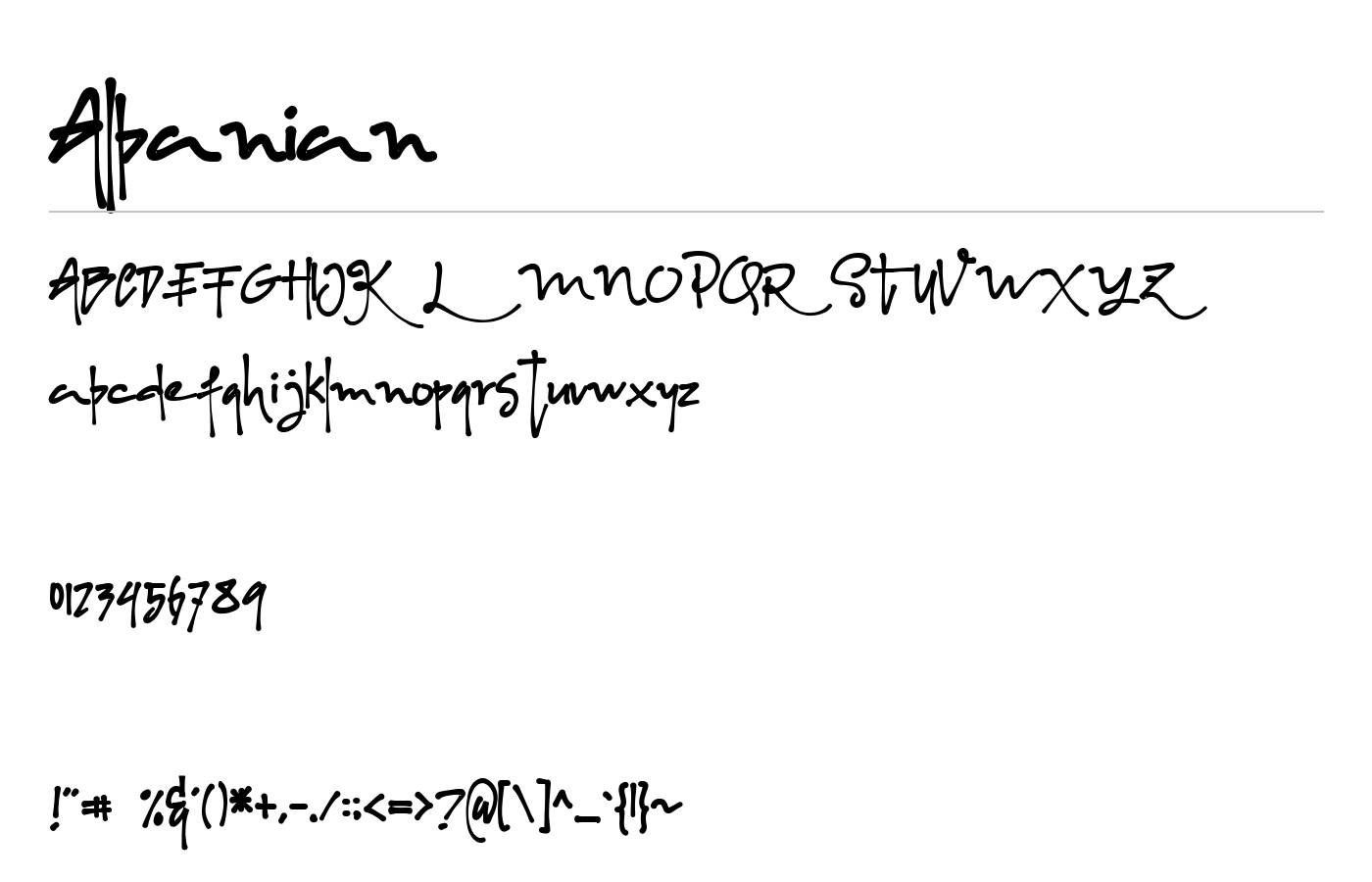
Albanian Font is an expressive handwritten script with a lively and casual feel, showcasing energetic, irregular strokes that give it a natural, personal touch. Its tall, narrow letterforms and slightly rough edges make it ideal for creative projects seeking a unique, informal vibe such as invitations, artistic branding, or lifestyle blogs. This font communicates warmth and individuality, working best in headline use where personality and charm are desired.
Albanian Font
About Albanian Font
| Font family | Albanian Font |